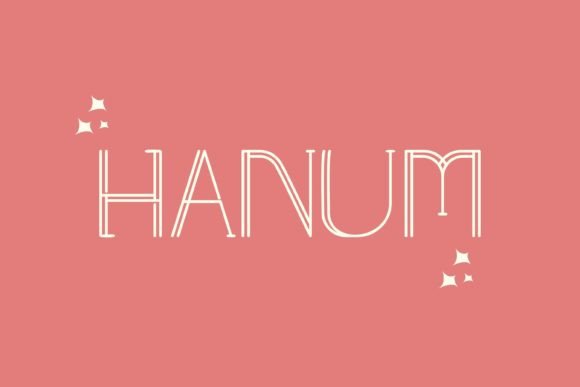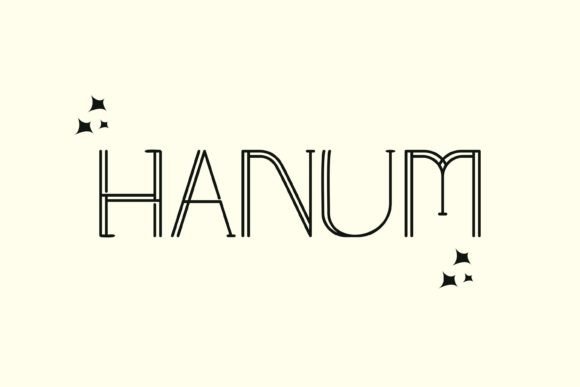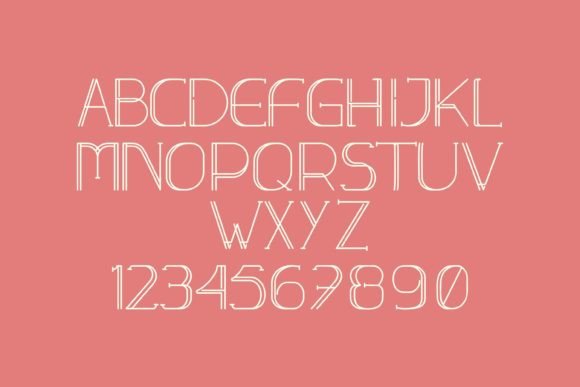
Introducing Hanum Font: Elevate Your Creations with Elegance and Style
Are you a designer, crafty person, or someone who loves to create unique and visually appealing content? Look no further! We’re excited to introduce you to Hanum Font, a distinctive and elegant display font that’s sure to take your creations to the next level. In this article, we’ll dive into the features, benefits, and uses of Hanum Font, and explore how it can help you achieve your design goals.
What is Hanum Font?
Hanum Font is a modern and stylish display font that’s perfect for creative projects. Its unique and elegant design makes it stand out from other fonts, giving you the opportunity to add a touch of sophistication to your work. Whether you’re designing a logo, creating social media graphics, or crafting a website, Hanum Font is an excellent choice.
Key Features of Hanum Font
- Unique and Elegant Design: Hanum Font boasts a distinctive and refined design that will set your creations apart from the rest.
- Trendy and Stylish: This font is perfect for designers and crafters who want to stay on top of the latest design trends.
- Display Font: Hanum Font is specifically designed as a display font, making it ideal for headlines, titles, and other prominent text elements.
- Easy to Read: Despite its stylish design, Hanum Font remains easy to read, ensuring that your message is conveyed clearly and effectively.
Benefits of Using Hanum Font
So, why should you choose Hanum Font for your next project? Here are just a few benefits of using this amazing font:
- Instant Recognition: Hanum Font’s unique design will help your creations stand out and grab attention.
- Professional Look: This font’s elegant design will give your work a professional and polished look, perfect for businesses, blogs, and more.
- Versatility: Hanum Font can be used for a wide range of projects, from logos and branding to social media graphics and website headers.
- Easy to Pair: This font pairs well with a variety of other fonts, making it easy to create a cohesive and visually appealing design.
How to Use Hanum Font
Using Hanum Font is easy! Here are a few tips to get you started:
- Headlines and Titles: Use Hanum Font for headlines, titles, and other prominent text elements to add a touch of elegance and style.
- Logo Design: Create a unique and memorable logo with Hanum Font, perfect for businesses, blogs, and more.
- Social Media Graphics: Use Hanum Font to create eye-catching social media graphics that will help you stand out from the crowd.
- Website Headers: Add a professional touch to your website with Hanum Font, perfect for headers, navigation menus, and more.
Here are a few additional tips for designers and crafters who want to get the most out of Hanum Font:
- Experiment with Colors: Try pairing Hanum Font with different colors to create a unique and visually appealing design.
- Play with Sizes: Experiment with different font sizes to create a hierarchical design that’s easy to read and understand.
- Mix and Match Fonts: Don’t be afraid to pair Hanum Font with other fonts to create a cohesive and stylish design.
In conclusion, Hanum Font is a unique and elegant display font that’s perfect for designers, crafters, and anyone who wants to create visually appealing content. With its trendy and stylish design, Hanum Font is sure to elevate each of your creations and help you achieve your design goals. So why wait? Download Hanum Font today and start creating something amazing!